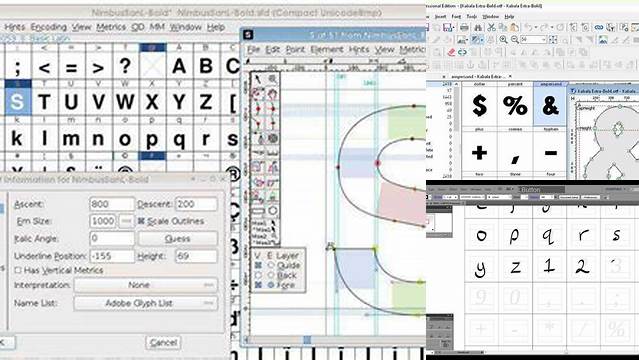
Free Font Maker Apps: Create Custom Fonts
Are you looking to create your own unique fonts? Do you want to stand out from the crowd with personalized typography? Look no further! This article dives deep into the world of free font maker apps, exploring the best options available for both beginners and experienced designers. We’ll cover everything you need to know, from the basic features to the advanced functionalities, helping you choose the perfect tool to bring your font ideas to life. Get ready to unleash your creativity and design custom fonts like a pro, all without spending a dime!
What is a Font Maker App?
First things first, what exactly is a font maker app? In simple terms, it’s a software application that allows you to design and create your own fonts. These apps provide the tools and interface you need to draw each character, define its style, and export the finished font in various formats like TTF (TrueType Font) or OTF (OpenType Font). This means you can use your custom-designed fonts in any application that supports font installation, such as word processors, graphic design software, websites, and more.
These apps vary in complexity and features. Some are designed for ease of use, perfect for beginners who just want to dabble in font creation. They often provide a straightforward interface with basic drawing tools and limited customization options. Other apps cater to professionals, offering advanced features like kerning, hinting, and support for complex glyph designs. These more advanced tools allow for fine-tuning of the font’s appearance and functionality, ensuring it works flawlessly across different platforms and devices. Font maker apps empower anyone to transform their handwriting, sketches, or unique visual concepts into functional fonts. They break down the barriers of traditional font design, making it accessible to anyone with a creative idea and a computer or mobile device. Whether you want to create a font for personal use, branding, or commercial projects, font maker apps provide the necessary tools and flexibility.
Why Use a Free Font Maker App?
Why bother with free font maker apps when there are so many commercial options out there? Well, the benefits are numerous, especially for those who are just starting out or have budget constraints. Firstly, they’re free! This is a huge advantage. You can experiment, learn, and create without any financial commitment. It's a fantastic way to explore your creativity and see if font design is something you enjoy before investing in more expensive software. Secondly, free font maker apps are often surprisingly feature-rich. Many offer a wide range of drawing tools, customization options, and export formats. You can create professional-looking fonts without spending a fortune. Many of these apps have active communities and online tutorials, which are invaluable resources for learning and troubleshooting. You can often find solutions to common problems and learn new techniques from experienced users. Using a free font maker app is a low-risk, high-reward proposition. You can gain valuable skills, create unique fonts, and potentially even start a new career path, all without spending a dime. It opens up a world of creative possibilities that might otherwise be inaccessible.
Top Free Font Maker Apps
Here are some of the best free font maker apps available, each with its own strengths and weaknesses. I'll break down their features and tell you what they are best for. I will help you make an informed decision about which one is right for you.
1. FontForge
FontForge is a powerful, open-source font editor that runs on Windows, macOS, and Linux. It's a favorite among professionals due to its comprehensive features and flexibility. Although it may have a steeper learning curve, the depth of control and the ability to create highly customized fonts make it worth the effort. FontForge offers a wide array of drawing tools, supports a variety of font formats, and allows for detailed control over every aspect of font design, including kerning, hinting, and glyph design. One of the biggest advantages of FontForge is its ability to handle complex font projects. You can create fonts with hundreds or even thousands of glyphs, including support for different scripts and languages. The software is constantly updated by a dedicated community of developers, ensuring that it stays current with the latest font design standards. For experienced designers or those looking for advanced features, FontForge is a top choice. While it can be intimidating at first, its power and versatility are unmatched. The open-source nature of FontForge means that it is continually evolving, with regular updates and new features added. This also ensures that you have access to a wealth of online resources, tutorials, and community support. If you are serious about font design and willing to invest time in learning, FontForge is an excellent option.
2. BirdFont
BirdFont is a user-friendly, free font editor designed for creating fonts in the OpenType format. It's a great option for beginners and those who want a more intuitive interface. BirdFont simplifies the font creation process with its clear layout and easy-to-use drawing tools. It provides all the essential features you need to design and customize your own fonts. You can easily draw each character, adjust its appearance, and see how it will look in different sizes. It also offers a good range of export options, allowing you to use your fonts in a variety of applications. One of the key features of BirdFont is its focus on OpenType fonts, which support advanced typographic features like ligatures and alternate glyphs. This is important if you plan to create more complex and sophisticated fonts. BirdFont's simplicity makes it an ideal choice for those new to font design or anyone who wants a hassle-free experience. The software is continually updated, with regular improvements and bug fixes. The user interface is clean and uncluttered, which helps to minimize distractions and streamline the design process. BirdFont is a great choice if you need a simple and effective free font maker app.
3. Calligraphr
Calligraphr takes a different approach to font creation. This web-based tool allows you to turn your handwriting into a font quickly and easily. You start by printing out a template, filling in the characters by hand, scanning the template, and uploading it to Calligraphr. The software then converts your handwriting into a usable font. Calligraphr is perfect for those who want to create a personal font based on their own handwriting or signature. It's a fantastic way to add a personal touch to your documents, designs, or branding materials. The ease of use is one of the main advantages of Calligraphr. The entire process, from filling in the template to downloading your font, is streamlined and intuitive. The tool also offers various customization options, such as adjusting the spacing and kerning of your characters. It is an excellent option for creating fonts with a unique, handwritten feel. Calligraphr offers both free and premium versions. The free version allows you to create basic fonts, while the premium version offers more advanced features and customization options. The web-based nature of Calligraphr means that you can use it from any device with an internet connection. The lack of software installation is a bonus. It's also a great way to experiment with different handwriting styles and see how they translate into fonts.
4. Fontstruct
Fontstruct is a free, web-based font editor that lets you build fonts using geometric shapes. It's a unique and fun way to create fonts, especially for those who enjoy pixel art or geometric designs. The interface is simple and intuitive, making it easy to experiment with different shapes and create unique letterforms. Fontstruct is ideal for creating display fonts, which are often used for headlines, logos, or other design elements that require a bold and eye-catching look. The tool lets you construct each character from a set of predefined shapes, like squares, circles, and triangles. You can arrange these shapes in various combinations to create complex and interesting glyphs. One of the advantages of Fontstruct is its ease of use. The software is easy to learn and lets you design fonts without any prior knowledge of font design principles. The online community of Fontstruct is also a great resource. You can browse fonts created by other users, get inspiration, and learn from their designs. Fontstruct is a great option if you're looking for a fun and engaging way to create unique display fonts. The software also has a built-in export option that lets you download your fonts in TrueType format. You can use your fonts in various design projects.
Tips for Creating Great Fonts
Even with the best free font maker apps, creating a great font takes more than just technical skill. It requires an understanding of typography principles and a keen eye for detail. Here are some tips to help you create fonts that look professional and are user-friendly.
- Start with a clear concept: Before you start designing, decide on the style and purpose of your font. Will it be used for headlines, body text, or both? What kind of mood or impression do you want it to convey? Having a clear concept will guide your design decisions and help you create a cohesive font.
- Study existing fonts: Analyze the fonts you admire. Pay attention to the letterforms, spacing, and overall design. What makes them successful? Learning from the pros is a great way to improve your skills and develop your own style.
- Pay attention to the details: Small details, like the curves, serifs, and spacing, can make a big difference in the overall appearance of your font. Take the time to fine-tune these elements to create a polished and professional-looking font.
- Test your font: Test your font in different sizes and contexts to make sure it’s legible and works well. Print it out and review it on different screens to ensure that it looks good everywhere.
- Kerning and spacing: Kerning is the space between individual characters. Good kerning is essential for ensuring your font is readable. Spacing between the letters has to be consistent, and characters have to be visually balanced. If you do not take this step, your font might have issues.
- Iterate and refine: Designing a great font is an iterative process. Don't be afraid to make changes and improvements as you go. Get feedback from others and be open to suggestions. The more you refine your font, the better it will become.
Choosing the right free font maker app is the first step in your font design journey. Whether you're a beginner or an experienced designer, there's an app out there that's perfect for you. By following the tips and experimenting with the tools discussed in this article, you'll be well on your way to creating your own beautiful and unique fonts. So, go ahead, download an app, and start creating! The world of typography is waiting for your creative touch. Don’t be afraid to experiment, and most importantly, have fun. Font design is a rewarding process that allows you to blend creativity and technical skill. With practice and dedication, you can create stunning fonts that will make a mark in the design world.